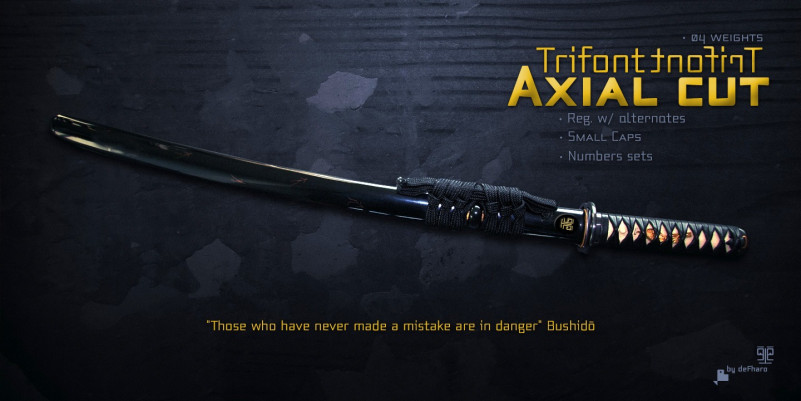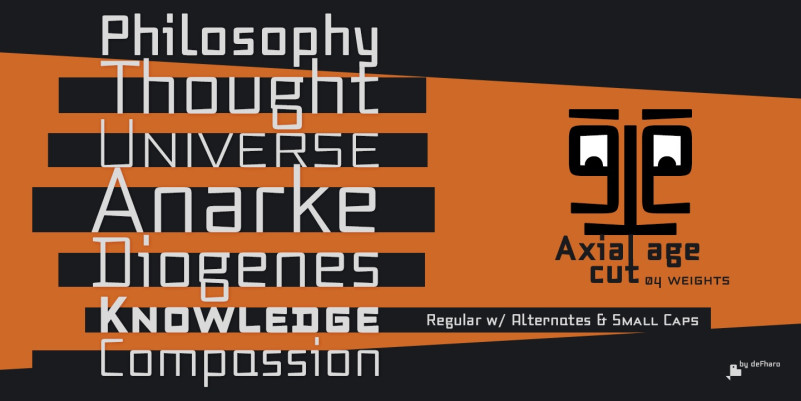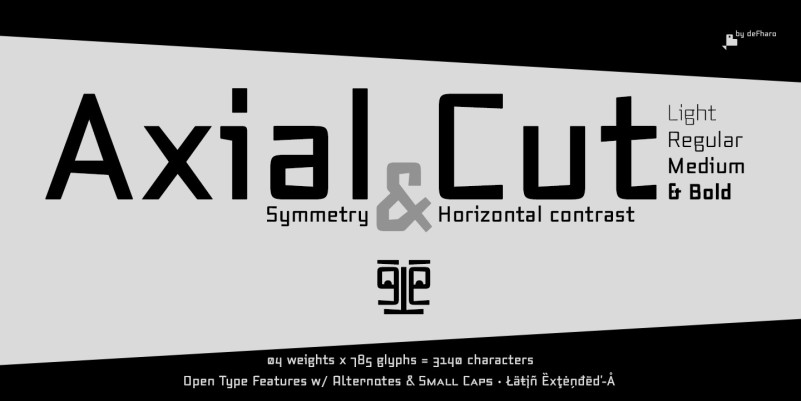
Axial Cut Font
Axial Cut Sans Serif Font is a sans serif typeface family (Latin Extended-A), a contemporary and rounded evolution of geometric screen fonts, but this time the letters are built on an axial axis that results in against trapezoidal shapes, unions with the antlers reduced, which correct optical effects in small sizes to make the typography more legible, and at the same time, in large sizes it shows its original shapes.